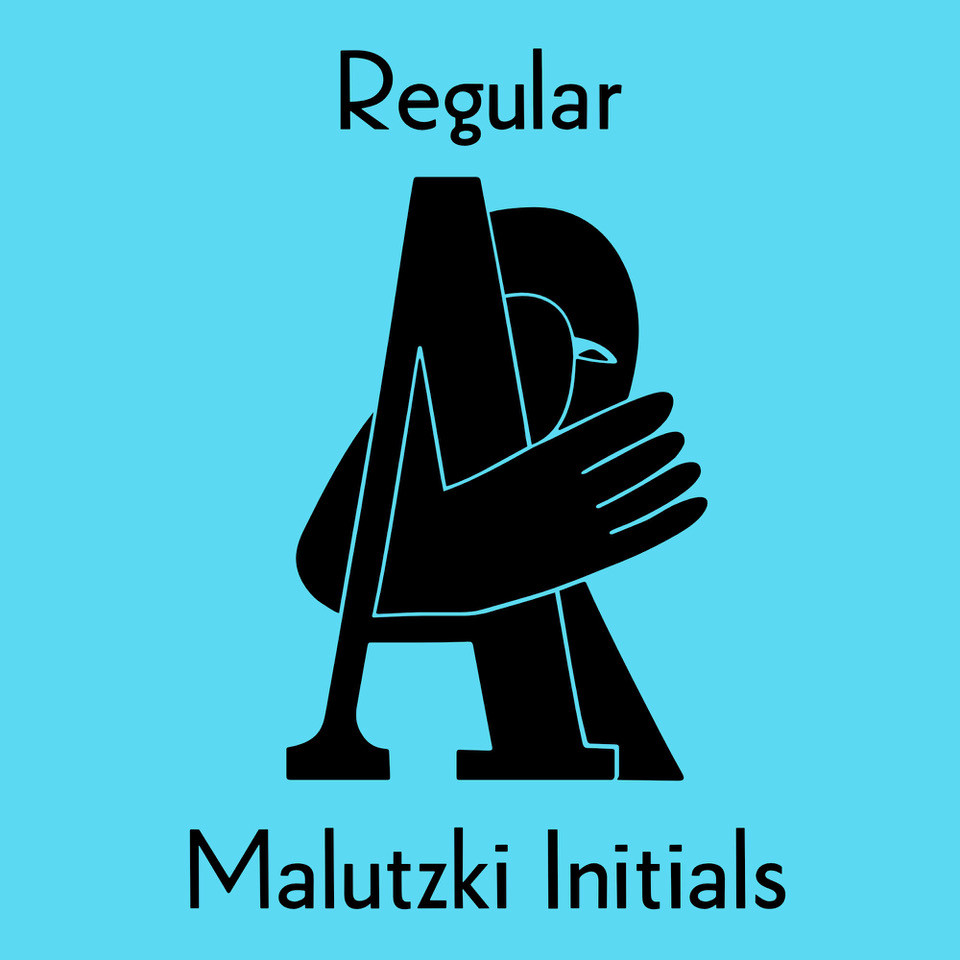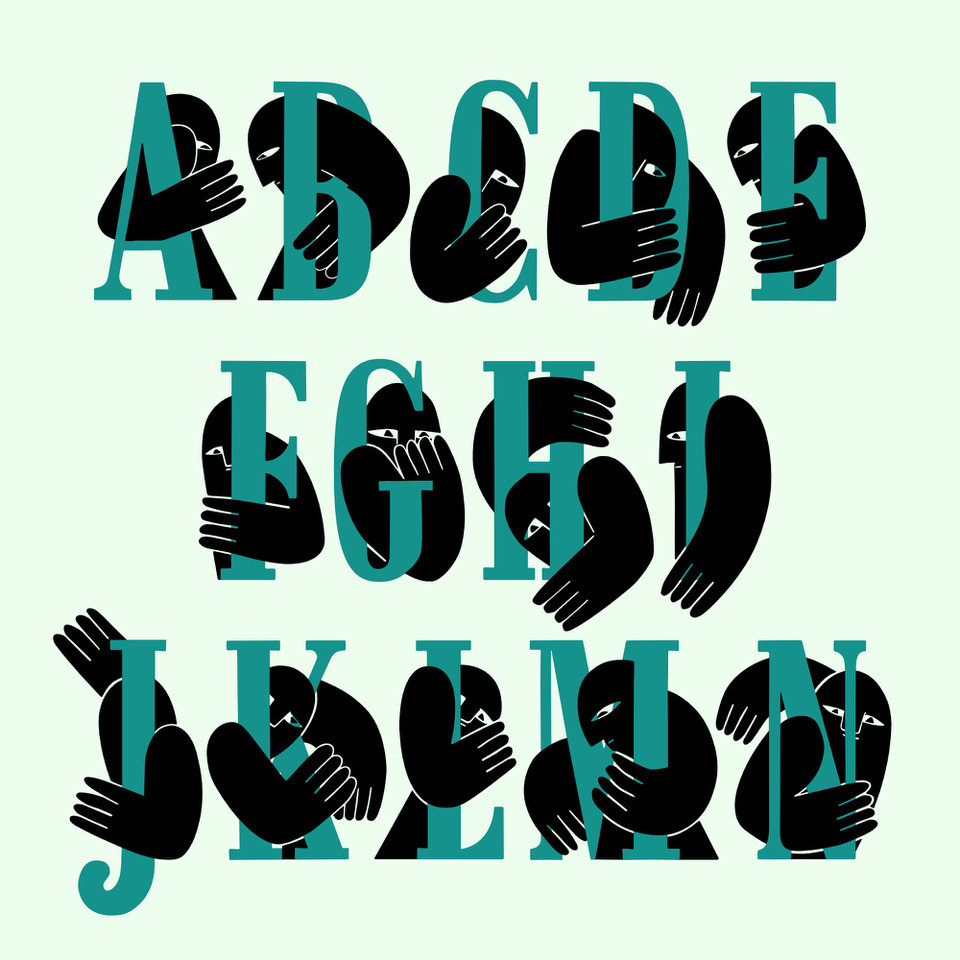
About the Original Print
In 1980, Peter Malutzki, Heidi Hübner-Prochotta, and Manfred Prochotta founded the FlugBlatt-Presse in Lahnstein and Mainz and began producing broadsheets, which they called FlugBlätter and which also gave their press its name. They were mostly woodcuts or linocuts, combined with hand-set typography. When they finished the series in 1984 there were 67 FlugBlätter. During a Frankfurt Book Fair in the 1980s collector Rob Saunders acquired FlugBlatt No. 37 along with other prints. They became part of Letterform Archive’s collection when it opened in 2014.
There are some items in our collection that I think of as meta objects. Malutzki’s alphabet print is one. We have relationships with letters. We are shocked and intimidated by them, curious about and confused by them, in love with them. Mostly ‘J’: “Hey, friend, come check out this letter!”
Stephen Coles, Associate Curator, Letterform Archive
About the Typeface
In 2021, Letterform Archive posted the FlugBlatt No. 37 on social media, where type designer Lena Schmidt saw it, immediately fell in love with it, and developed the plan to bring it into the digital world. After contacting Peter Malutzki – who is still working as a book artist today – and in close consultation with him, Schmidt translated the letterforms into a font series, Malutzki Initials.
The three fonts can be used for black (single-color) text using the Regular style, or for multicolor text by applying different colors to the Letter Layer and Figure Layer styles.
Character Set | Latin Uppercase only. Basic punctuation. No numerals. (See specimen.) |
Styles | Regular, Letter Layer, Figure Layer |